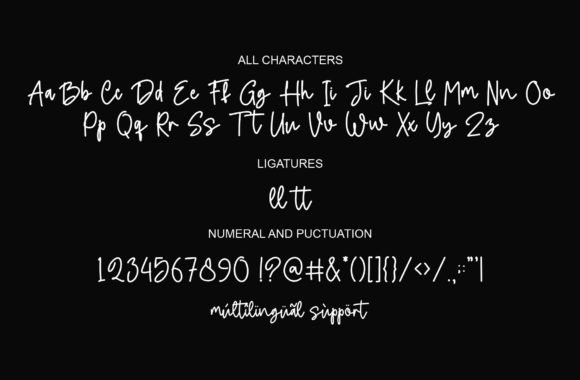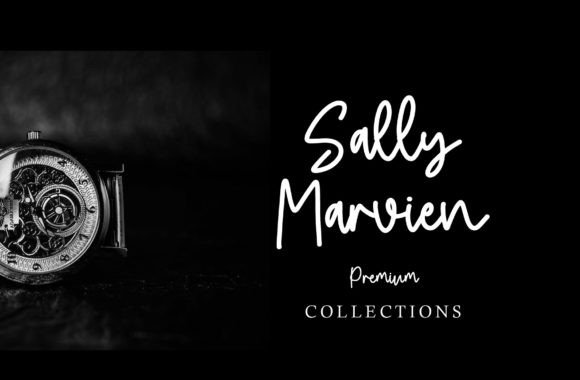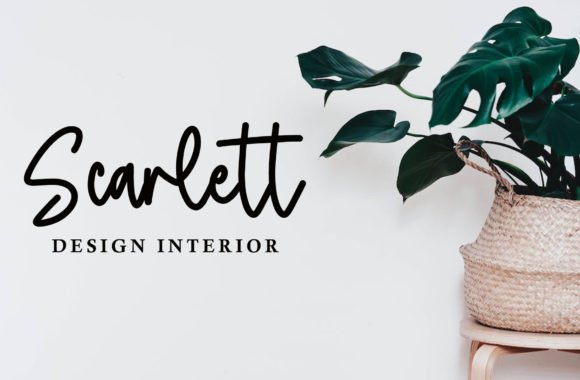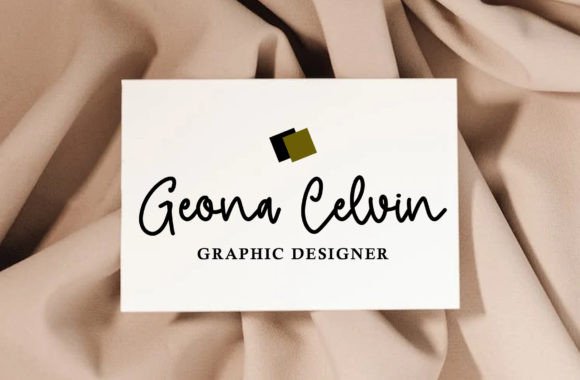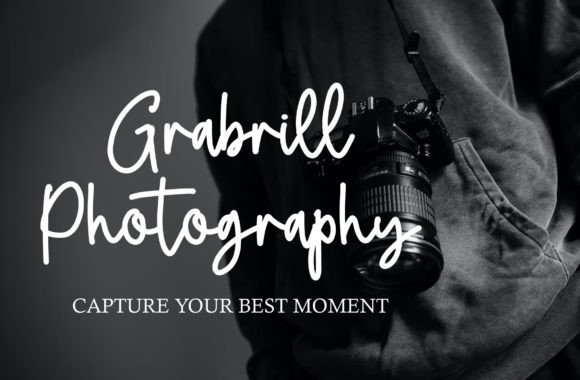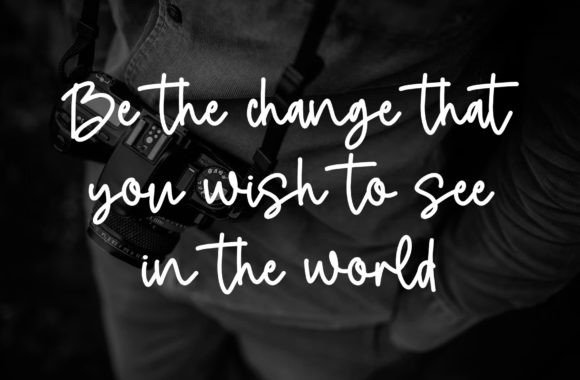
The Power of Buttery Signature: Elevate Your Designs with Elegance
I’ll never forget the time I was working on a branding project for a luxury candle company. I had nailed the color palette, imagery, and overall aesthetic, but something was missing. That’s when I realized the signature font I was using was all wrong. It was too generic, too bland, and didn’t capture the essence of the brand. I scoured the internet for the perfect font and stumbled upon Buttery Signature. It was love at first sight! ✨
Buttery Signature is a handwritten signature font that exudes elegance and sophistication. Its unique blend of casual and refined elements makes it perfect for a wide range of design projects, from business cards and logos to book covers and product packaging.
An Honest Review of Buttery Signature
• ✨ Unique and elegant style that’s sure to turn heads
• ✅ Perfect for signatures, business cards, and branding projects
• 💫 Works beautifully with OpenType features and glyphs
• 👍 Highly legible, even at small sizes
While Buttery Signature is an amazing font, it’s not without its quirks. For example:
• 🤔 Some characters may require manual kerning for optimal spacing
• ⚠️ Not suitable for body text or long-form writing due to its script nature
The Backstory of Buttery Signature
Buttery Signature was designed by a talented typographer who wanted to create a font that captured the essence of elegance and sophistication. The designer drew inspiration from classic script fonts, but with a modern twist. The result is a font that’s both refined and approachable.
Q: What is Buttery Signature?
A: Buttery Signature is a handwritten signature font with a unique and elegant style.
Q: Is Buttery Signature suitable for body text?
A: No, Buttery Signature is best suited for titles, headings, and short-form text due to its script nature.